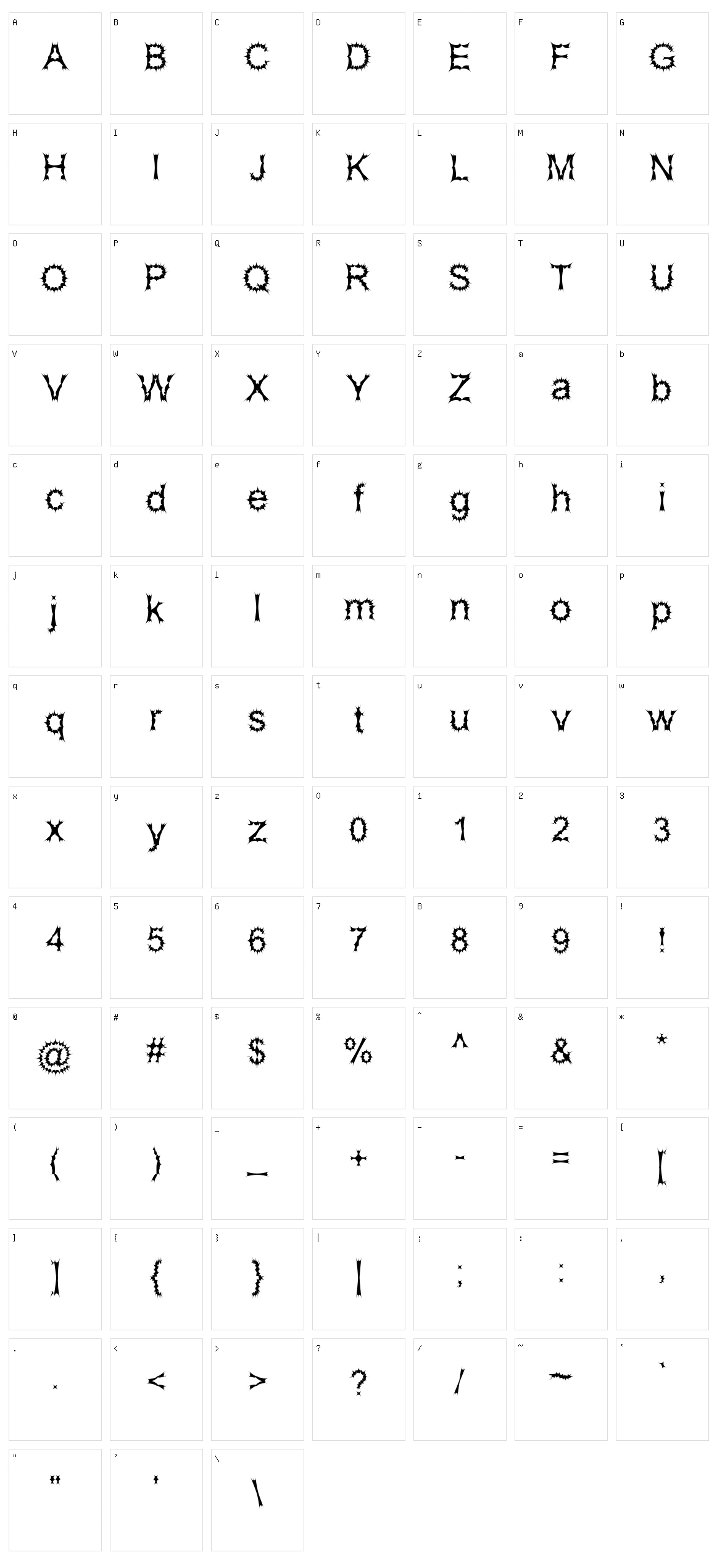
The free font Satan Possessed is carefully designed by GemFonts / Typotheticals, showcasing a thoughtful balance of creativity and usability and belongs to the Gothic font family. When you download the ZIP file, it contains only 100.6 KB of font files, making it lightweight and quick to download. Please review the license details below to understand permitted usage and distribution rights. If license information is not available, we recommend using this font for personal projects only or contacting the author directly for commercial usage permissions.